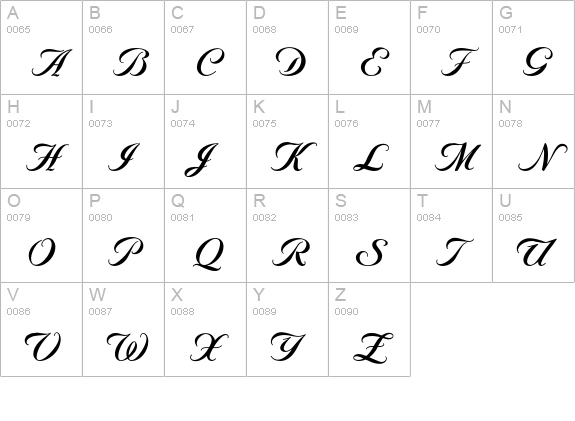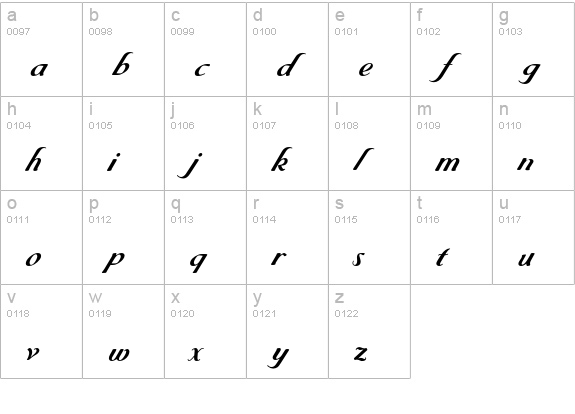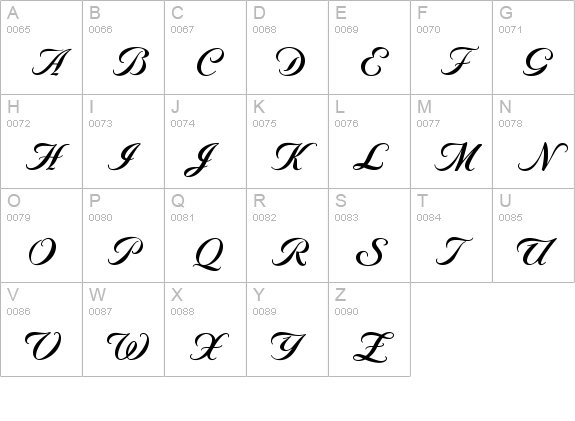
Byron RR Bold Font Details
Byron RR Bold is a strong, high-contrast variant in the Byron typeface family \xE2\x80\x94 well suited to headlines, attention-grabbing titles, and strong calls-to-action.
The Byron RR Bold font is a bold and eye-catching typeface that exudes a sense of strength and confidence. Its thick strokes and clean lines make it perfect for creating impactful designs that demand attention. Whether you're working on a poster, logo, or any other project that requires a bold statement, the Byron RR Bold font is sure to make a lasting impression. The best part? This versatile font is available for free download at FontsMarket.com, making it accessible to all designers and creatives looking to elevate their work with a touch of boldness. Don't miss out on the opportunity to add the Byron RR Bold font to your collection and take your designs to the next level.